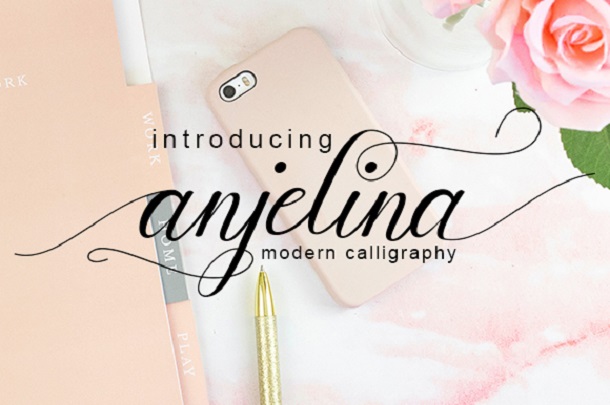
Anjelina Font
Anjelina is a stunning handwritten font, modernizing classic calligraphy with a contemporary edge – it makes a fantastic addition to any design!
Anjelina Calligraphy Script Font